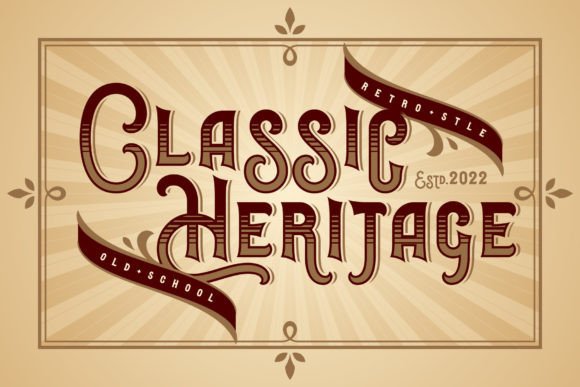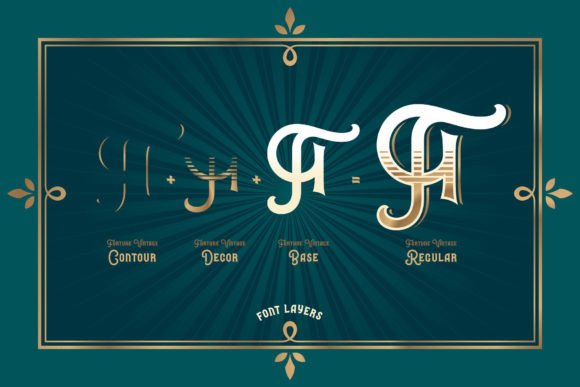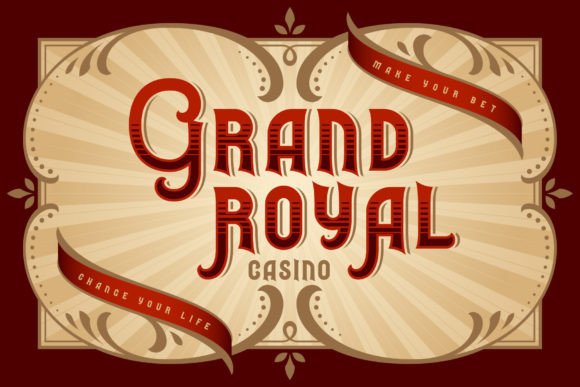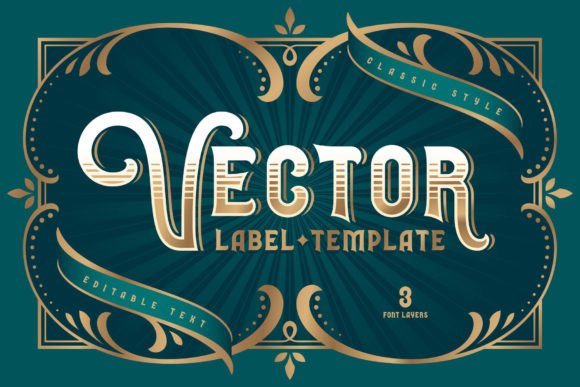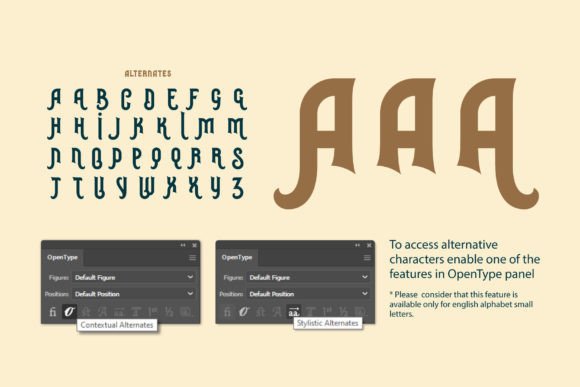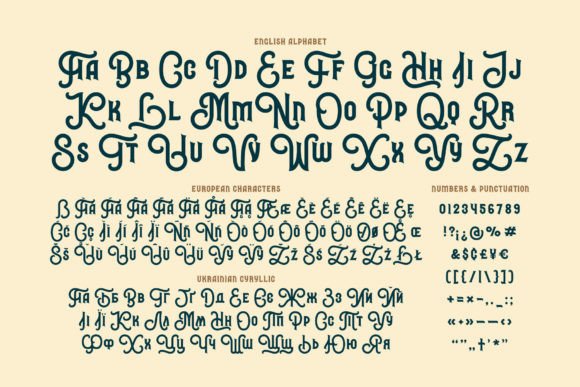
Introducing Fortune Font: Elevate Your Designs with a Touch of Vintage Elegance
Are you on the hunt for a font that exudes sophistication, class, and a hint of nostalgia? Look no further than Fortune Vintage, a distinct and retro-styled display font that’s sure to take your projects to new heights. With its perfect blend of traditional calligraphic influences and modern flair, Fortune Font is the ideal choice for designers and crafters seeking to add a touch of elegance to their work.
The Charm of Fortune Vintage
Fortune Vintage is more than just a font – it’s an experience. Its retro-styled design instantly transports you to a bygone era, evoking memories of classic typography and timeless sophistication. Yet, despite its vintage roots, Fortune Font feels remarkably contemporary and fresh, making it an excellent choice for a wide range of design applications.
One of the standout features of Fortune Vintage is its classy calligraphic influences. The font’s flowing lines, delicate curves, and subtle swashes all contribute to a sense of refinement and luxury, perfect for designers looking to add a touch of high-end style to their work.
What Makes Fortune Font So Special?
So, what sets Fortune Font apart from other display fonts on the market? Here are just a few reasons why designers and crafters are falling in love with this beautiful typeface:
- Unique Retro Style: Fortune Vintage boasts a distinctive retro aesthetic that’s sure to turn heads. Its classic design ensures that your projects will stand out from the crowd, while its modern twist keeps things fresh and exciting.
- Classy Calligraphic Influences: The font’s calligraphic roots add a level of sophistication and elegance, making it perfect for high-end branding, packaging, and editorial design.
- Versatility: Despite its display font classification, Fortune Vintage is remarkably versatile. Use it for headings, titles, and captions to add a touch of vintage glamour to your designs.
- Easy to Read: Despite its ornate design, Fortune Font remains surprisingly legible, even at smaller sizes. This makes it an excellent choice for designers who want to add visual interest to their work without sacrificing readability.
How to Use Fortune Font in Your Designs
Fortune Vintage is an incredibly versatile font that can be used in a wide range of design applications. Here are a few ideas to get you started:
- Branding and Packaging: Add a touch of vintage elegance to your brand identity with Fortune Font. Use it for logos, labels, and packaging to create a cohesive and sophisticated look.
- Editorial Design: Bring a touch of classic style to your editorial designs with Fortune Vintage. Use it for headings, titles, and captions to add visual interest and create a sense of nostalgia.
- Wedding and Event Design: Fortune Font is an excellent choice for wedding and event designers. Use it for invitations, programs, and other materials to create a sense of luxury and sophistication.
In conclusion, Fortune Vintage is a truly unique and exceptional display font that’s sure to elevate your designs to new heights. With its perfect blend of vintage charm and modern flair, this beautiful typeface is an excellent choice for designers and crafters seeking to add a touch of elegance and sophistication to their work. So why wait? Fall in love with Fortune Font today and discover a world of creative possibilities!